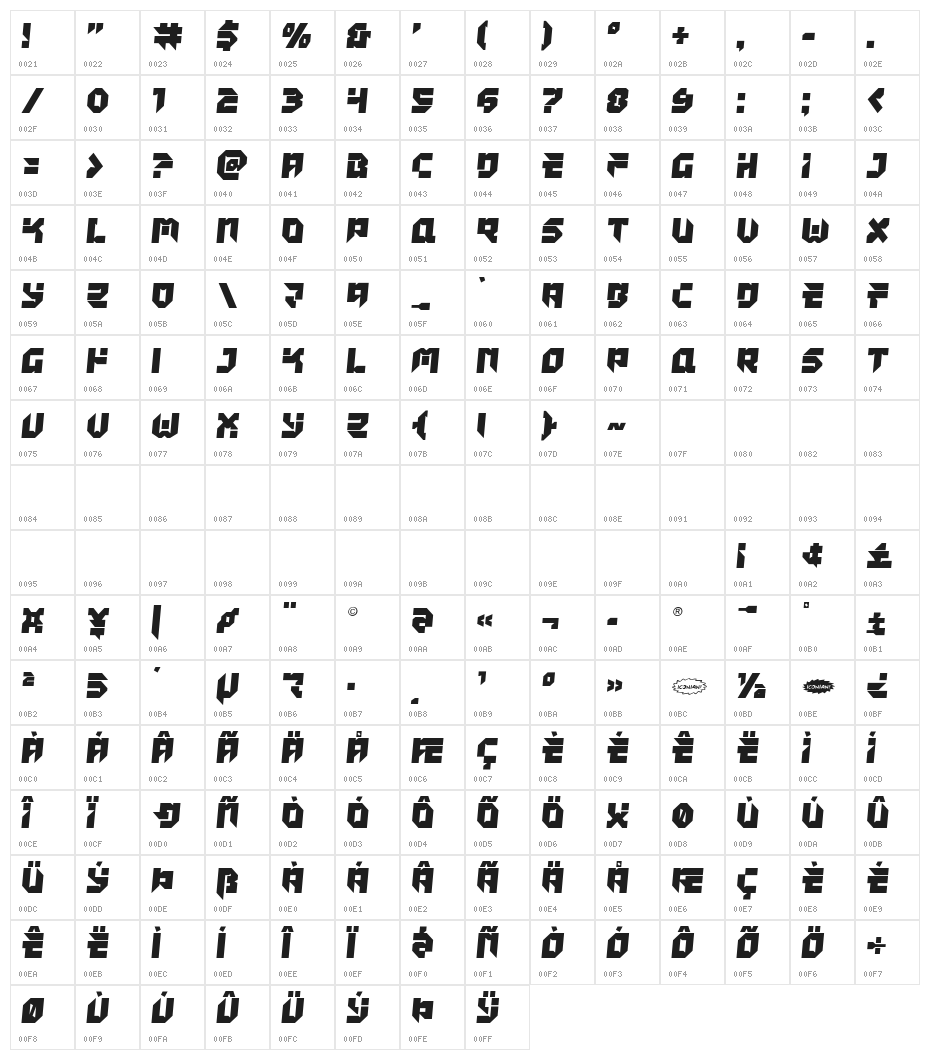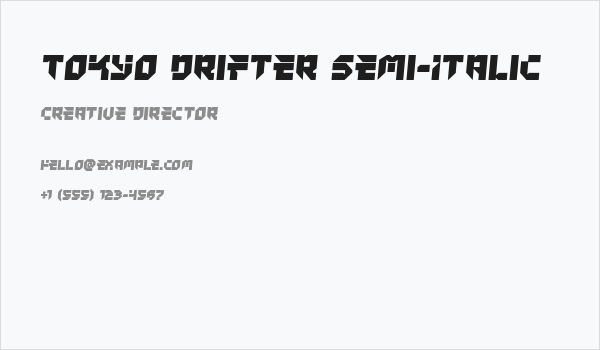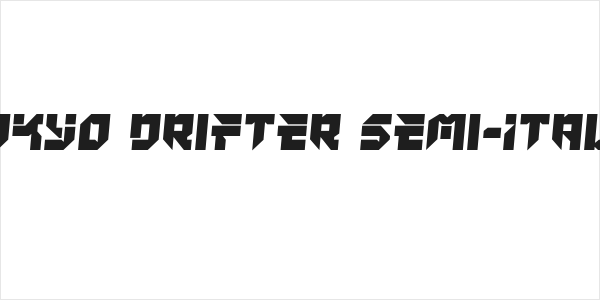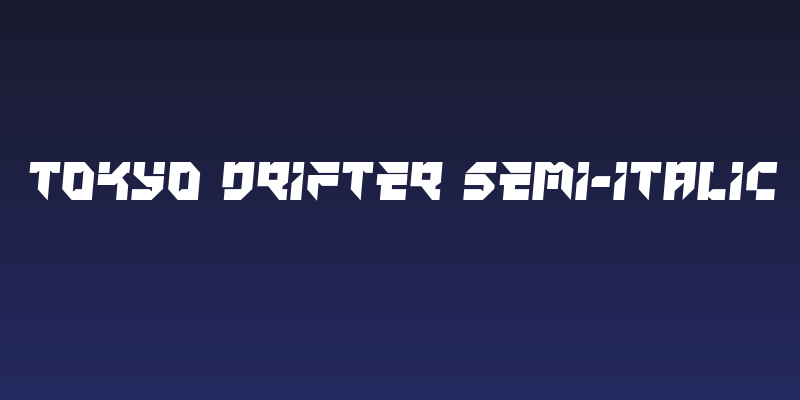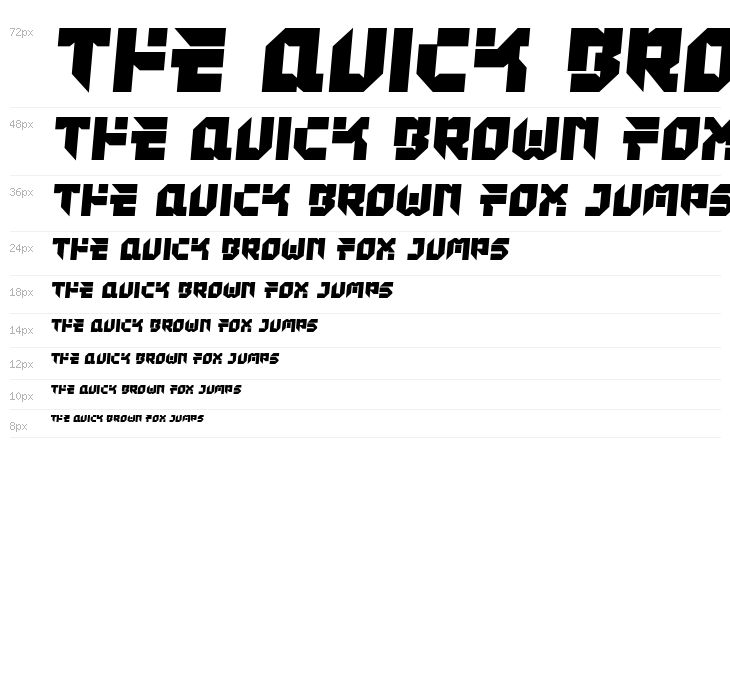
Tokyo Drifter Semi-Italic Font
Tokyo Drifter Semi-Italic Description
This font features a bold, geometric design with sharp angles and a futuristic aesthetic. The characters are constructed with a series of straight lines and angular cuts, giving it a dynamic and edgy appearance. The semi-italic slant adds a sense of motion and energy, making it stand out in any design. The uppercase and lowercase letters maintain a consistent style, while the numerals and special characters follow the same angular theme. This font is ideal for projects that require a modern and bold statement.
Proposed ProjectsIdeal for branding, posters, video game graphics, and any project needing a modern, edgy look.